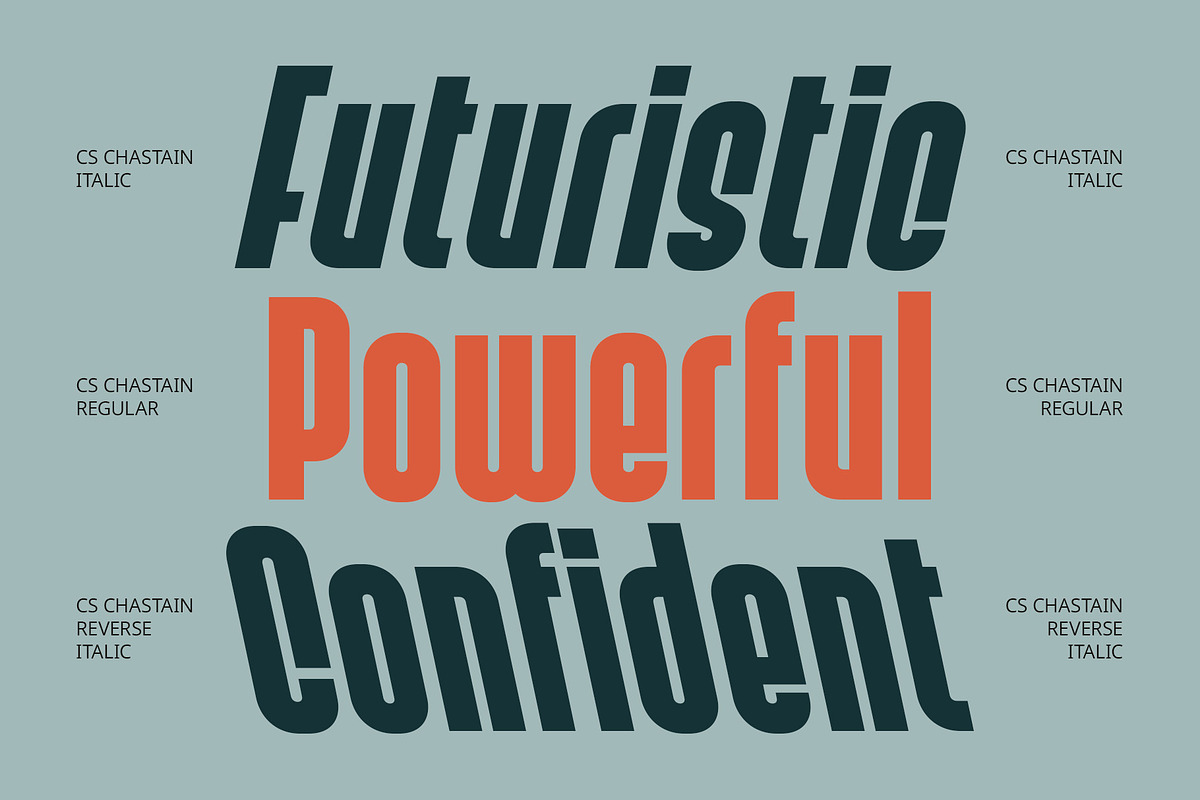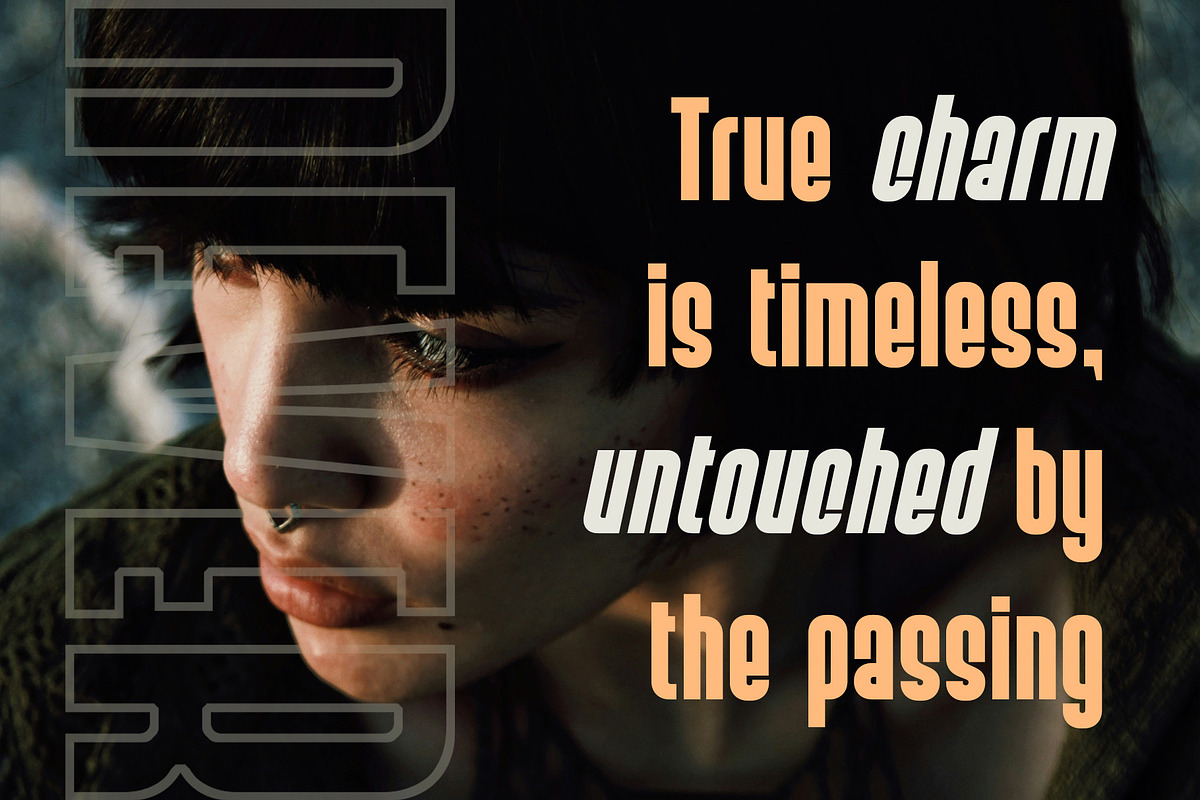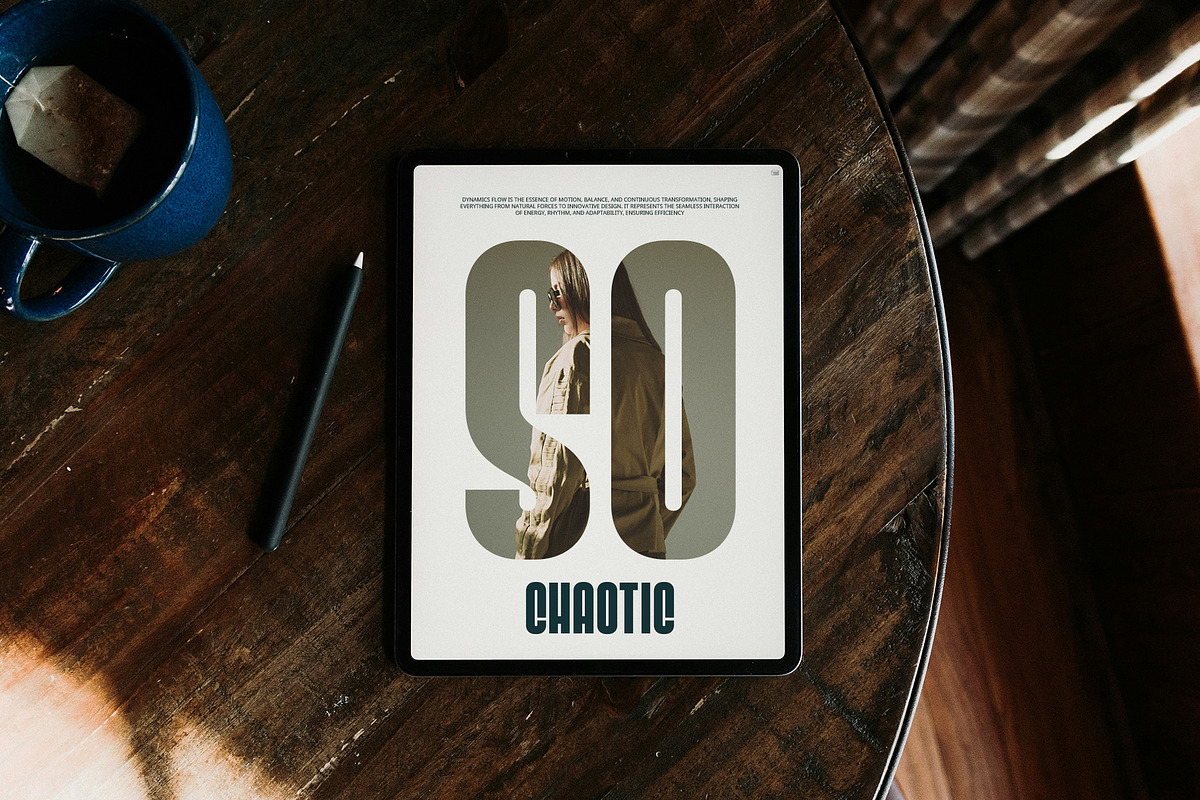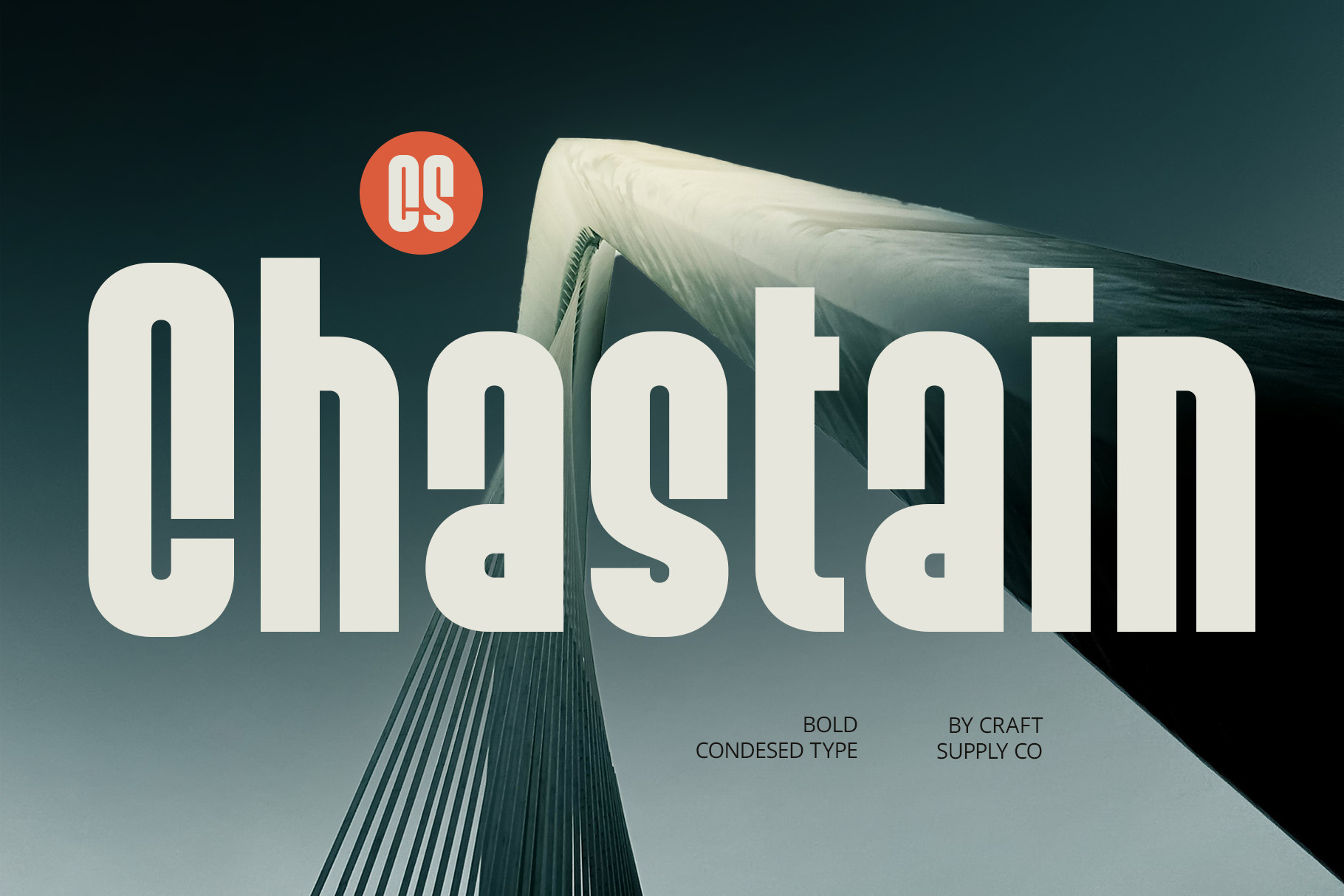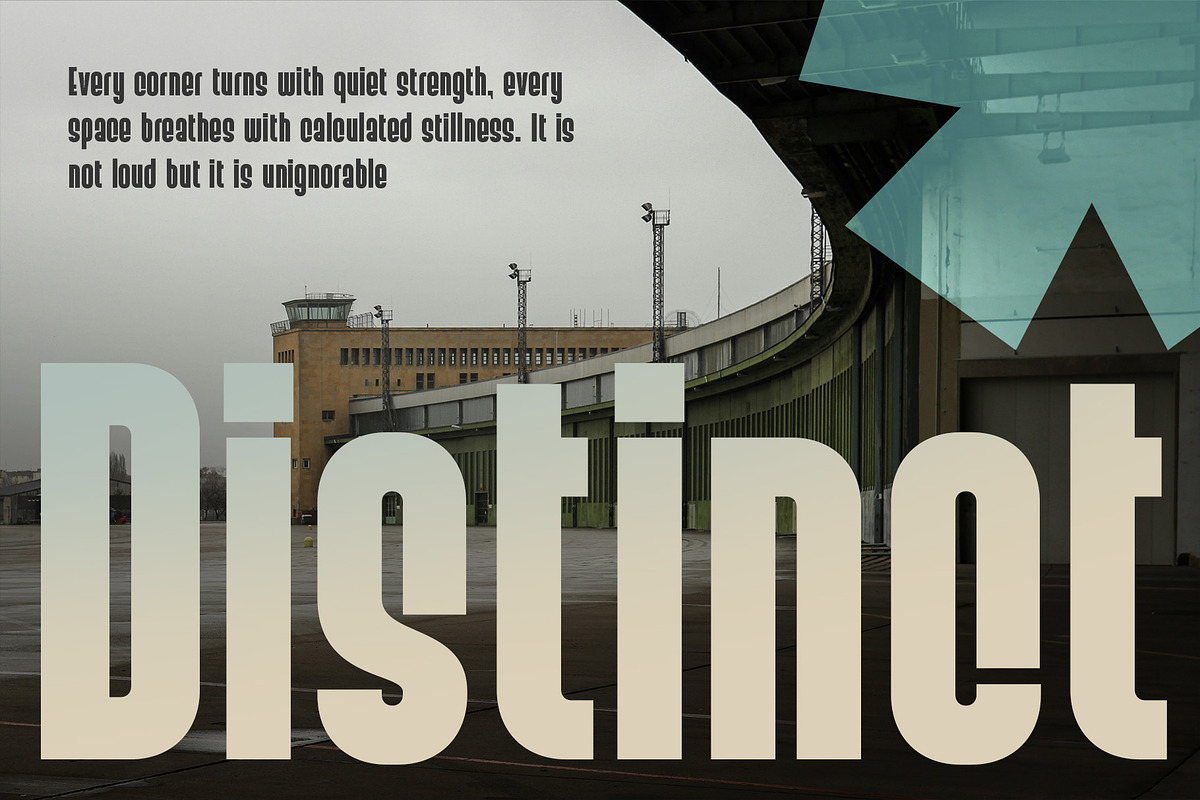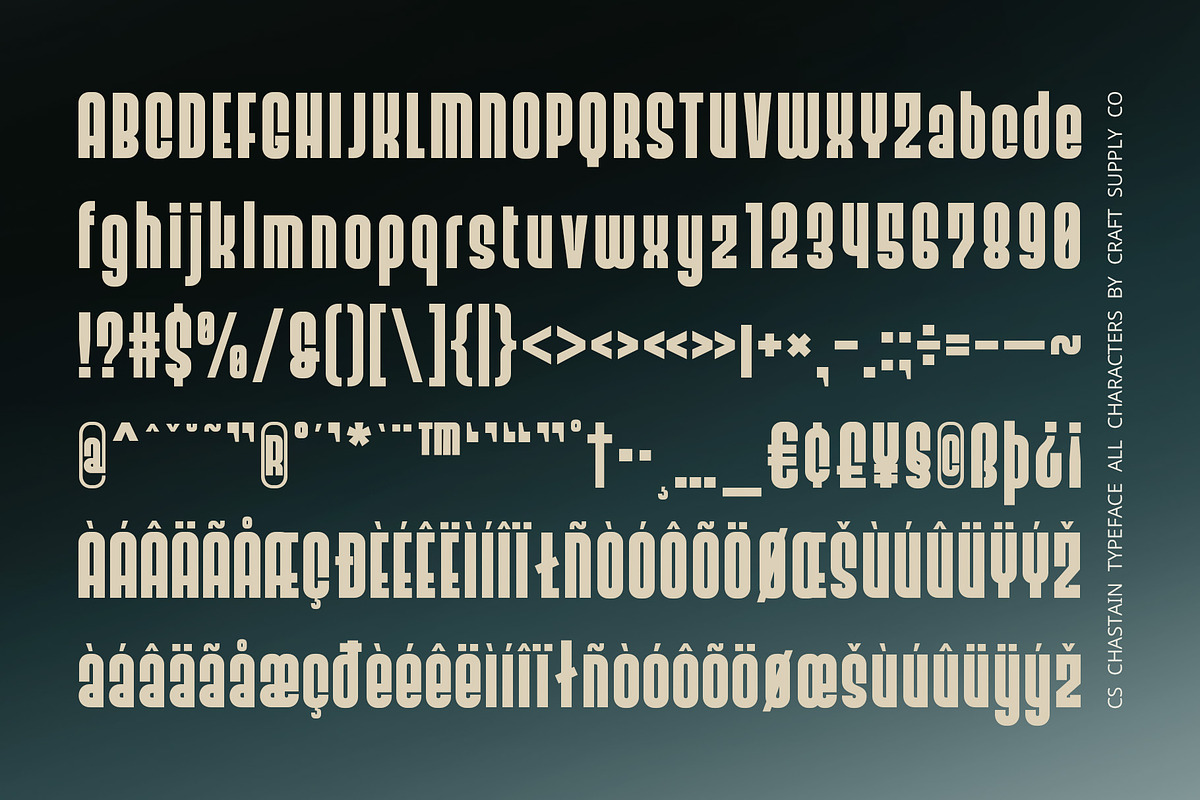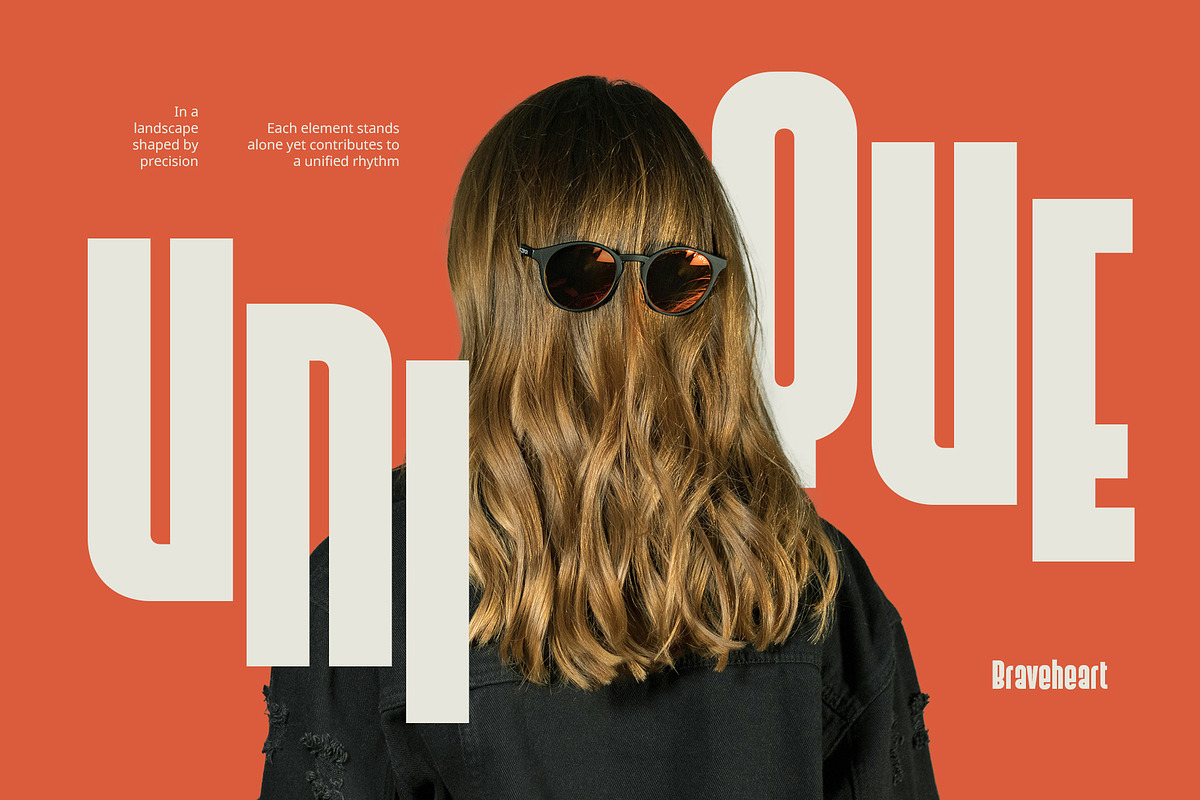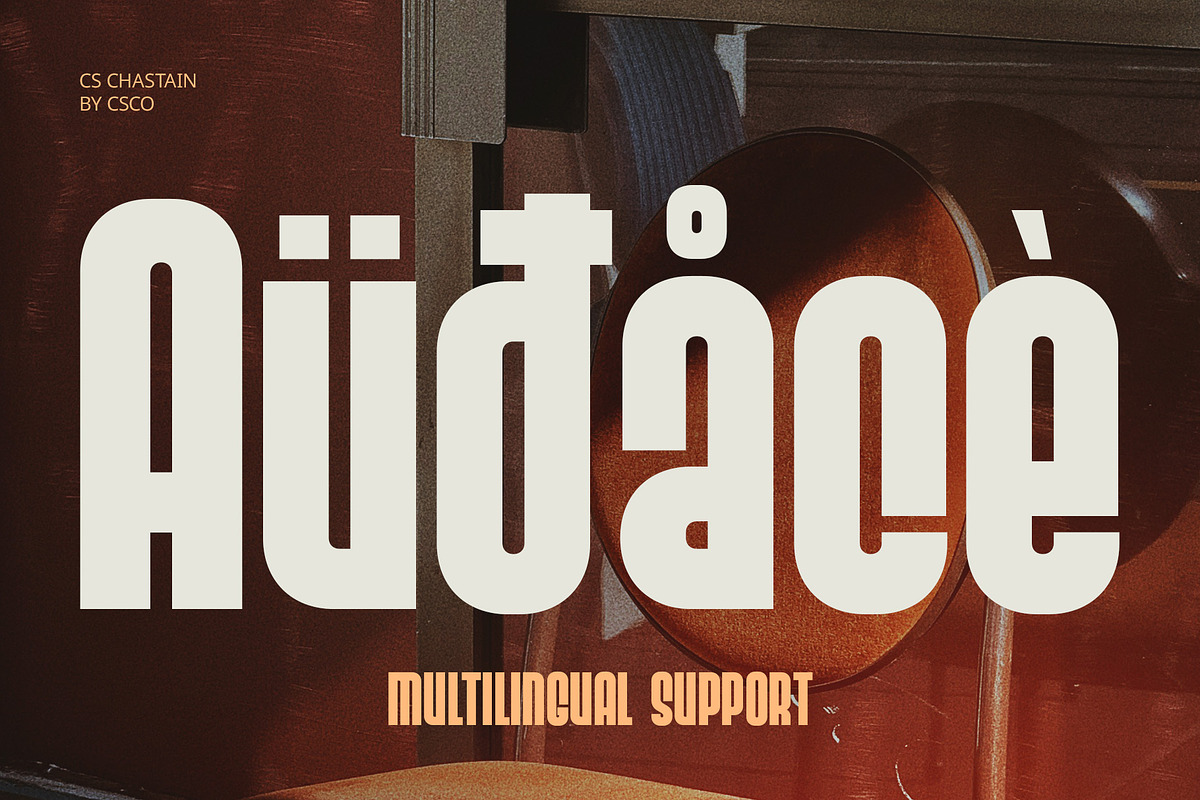
CS Chastain – Condensed Font
CS Chastain – Condensed Font: Strength in Sleek Simplicity
Bold Condensed Form for Maximum Impact CS Chastain is a modern sans serif font defined by its bold, condensed structure. With narrow yet sturdy letterforms, it creates a powerful visual presence while optimizing space—perfect for headlines and layouts where clarity and style must coexist within tight dimensions.
Clean and Contemporary Design Aesthetic This font showcases a clean, minimalistic design that fits seamlessly into modern visual language. Its sleek geometry and strong baseline bring a sharp, organized look that exudes professionalism and design confidence, ideal for high-impact and data-driven presentations.
Efficient and Versatile for Professional Use CS Chastain is tailored for functionality. Whether you’re designing brand identities, editorial layouts, or product packaging, its legibility and compactness make it a dependable choice for clear, concise messaging across multiple design formats.
Ideal for Modern Branding and Design Media From digital screens to printed posters, CS Chastain thrives in a variety of environments. CS Chastain strikes the perfect balance between practicality and visual style. Ideal for industries like tech, fashion, editorial media, and product branding, it brings a modern tone of voice that is strong yet refined. For designers looking to convey a message that is confident, modern, and forward-thinking, CS Chastain delivers clarity, efficiency, and style in one cohesive package.